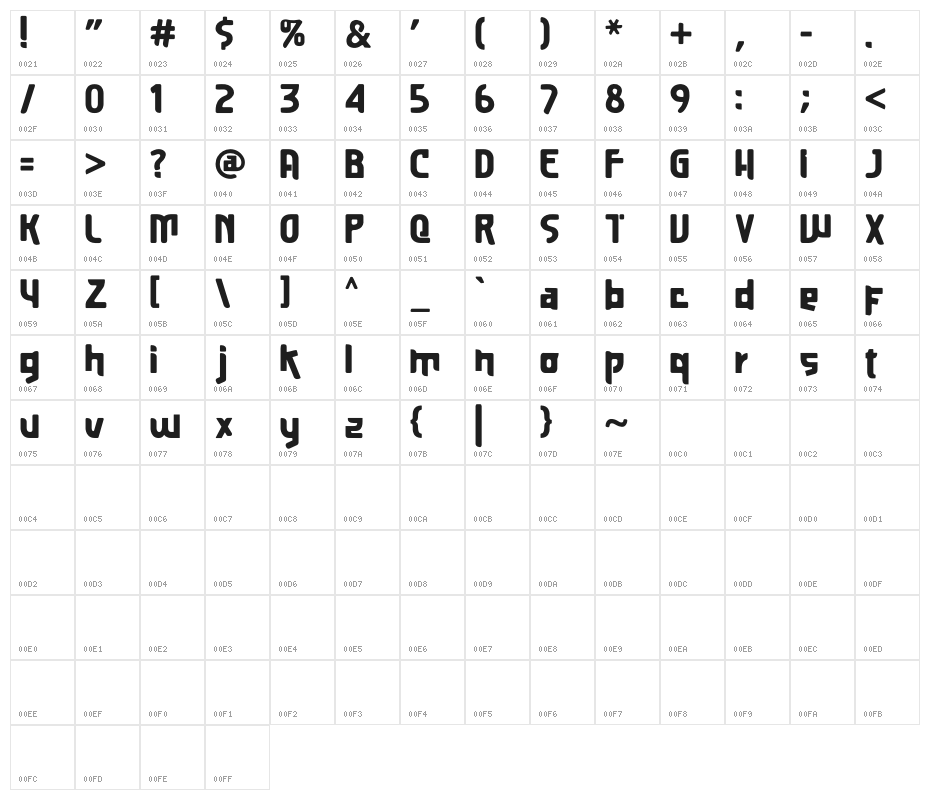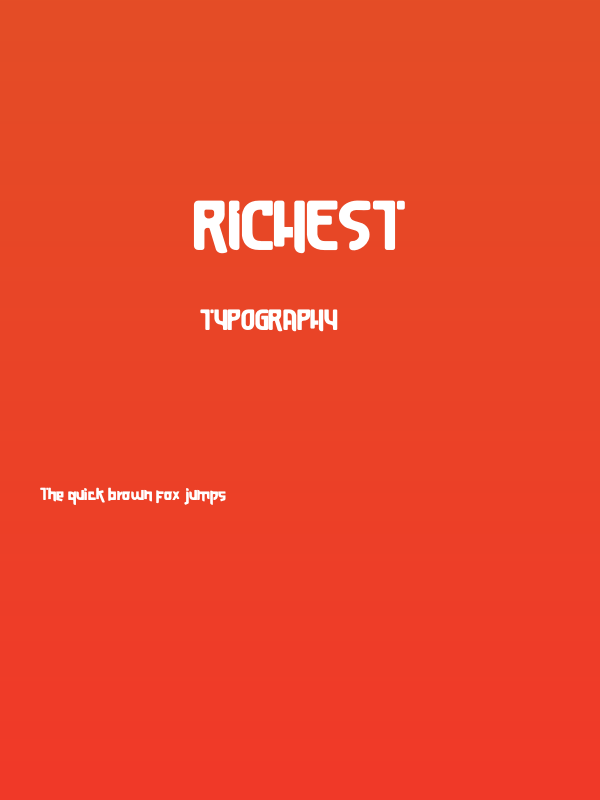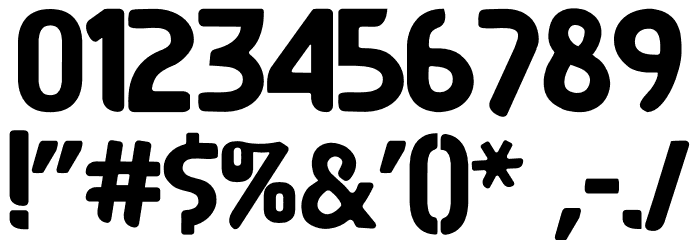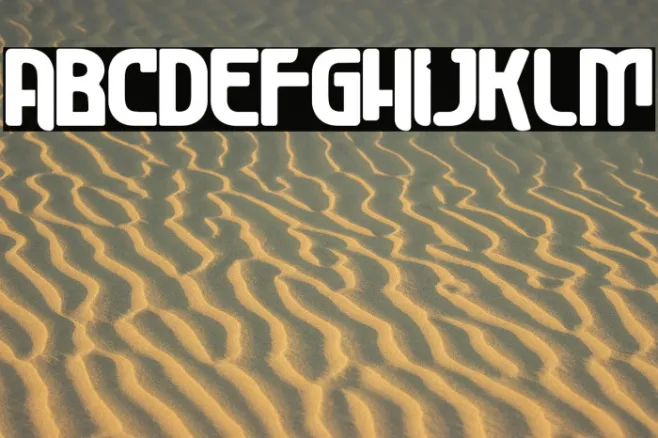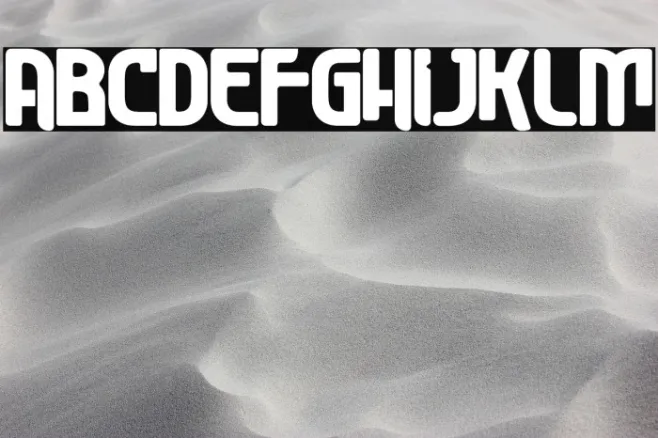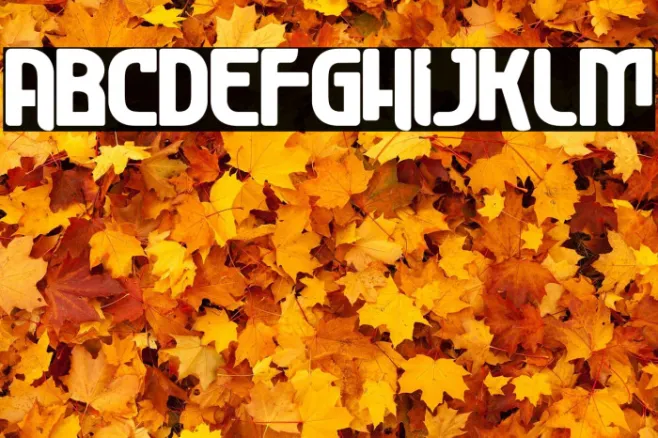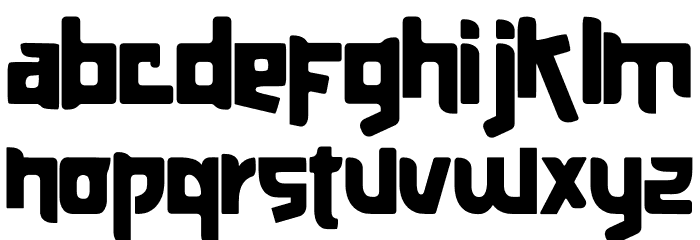
Richest Font
Richest Description
This font features a bold and playful design with rounded edges and a chunky appearance. The characters are uniformly thick, giving it a strong presence. The uppercase and lowercase letters maintain a consistent style, with slight variations in curvature and line endings. The numerals are equally bold, ensuring readability and impact. Special characters are designed to match the overall aesthetic, with a focus on maintaining the chunky, rounded style. This font is ideal for projects that require a fun and engaging look, such as children's books, posters, or branding for playful products.
| Overall Style | Playful, Modern |
| Proposed Projects | Children's books, playful branding, posters, and creative designs. |